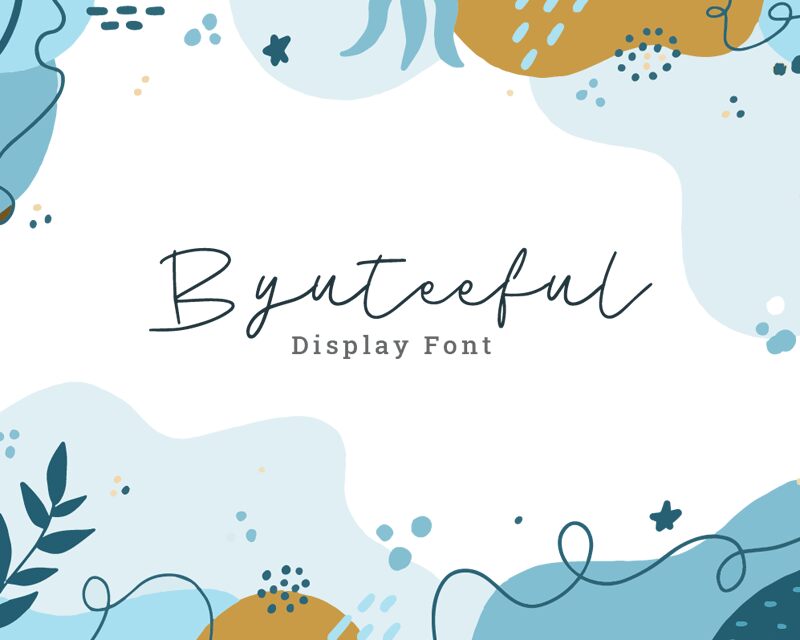
Introducing Byuteeful, an expertly crafted script font from designer Farid Aulia Rahman. With its handwritten style and wide, thin letterforms, Byuteeful is perfect for adding a personal touch to your projects – from invitations to greeting cards and more.
Byuteeful
Farid Aulia Rahman